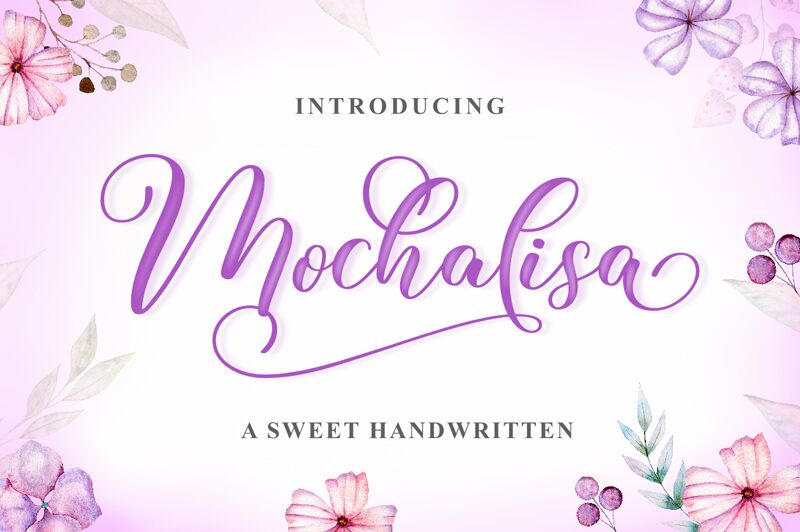
Mochalisa, the latest calligraphy font by designer Makashi, is a masterpiece that captures the essence of elegance and sophistication. With its semi-light weight, Mochalisa evokes a sense of grace and delicacy that is perfect for wedding invitations, greeting cards or any project that requires a touch of refinement. Its fluid strokes and intricate details make it an ideal choice for branding and logo design as well. Whether you're looking to add a romantic flair to your designs or simply want to elevate your typography game, Mochalisa is sure to impress!